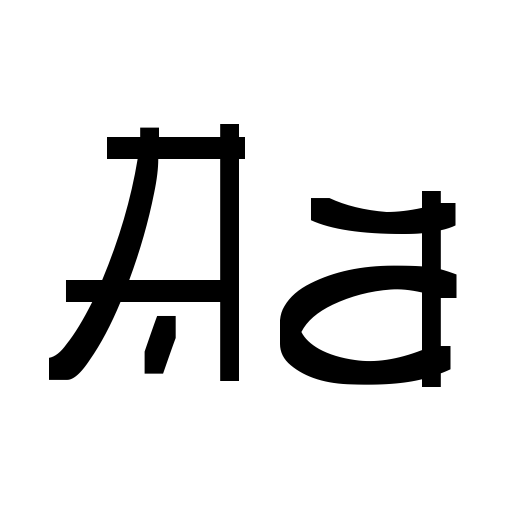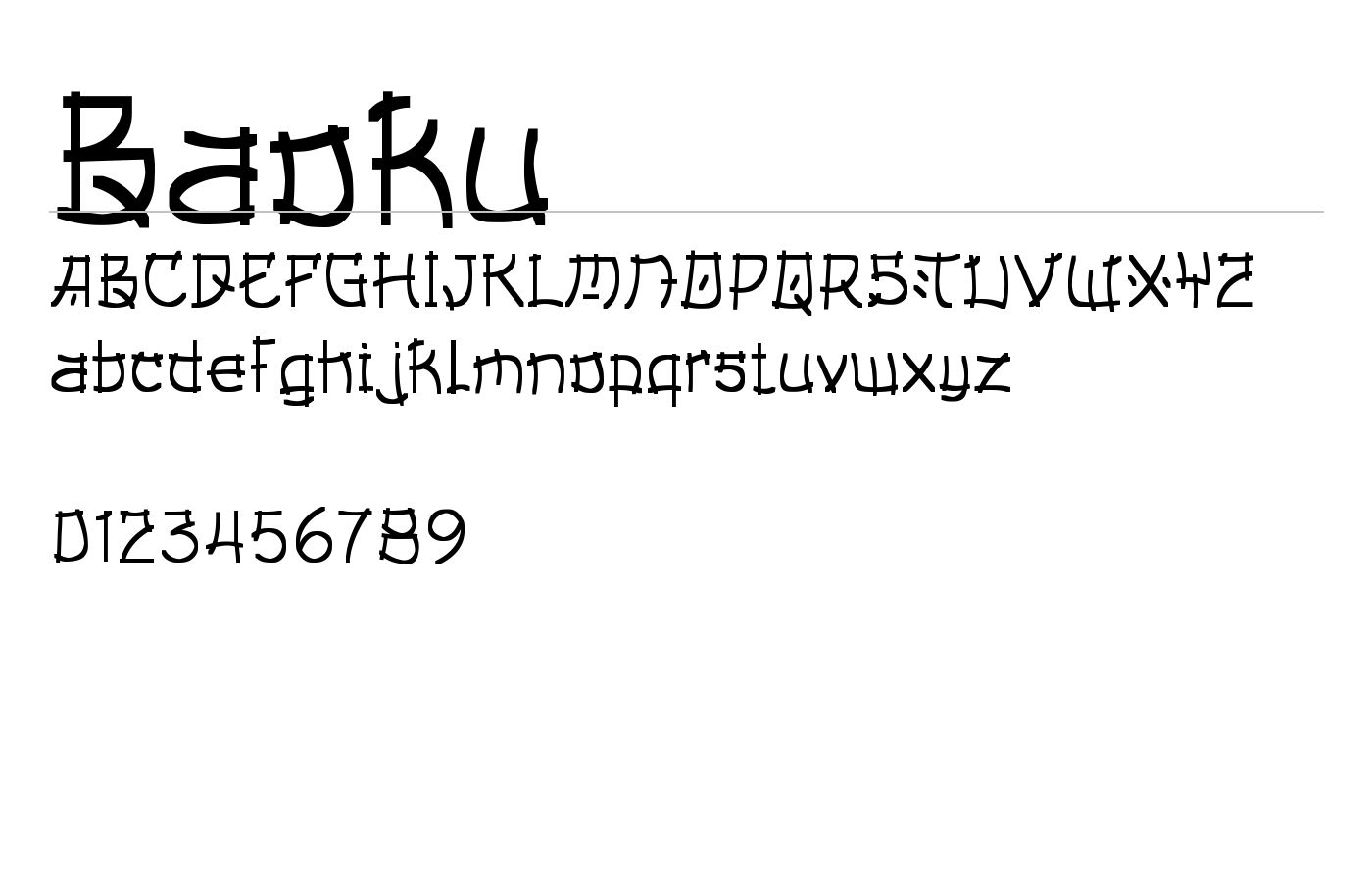
Baoku is a unique, decorative serif font with an artistic, hand-crafted feel. It features irregular, quirky strokes with distinctive sharp serifs that lend it a playful yet slightly gothic personality, making it great for creative projects and eye-catching headlines. This font works best for posters, branding, and designs that want to stand out with an unconventional and memorable style.
Baoku Font